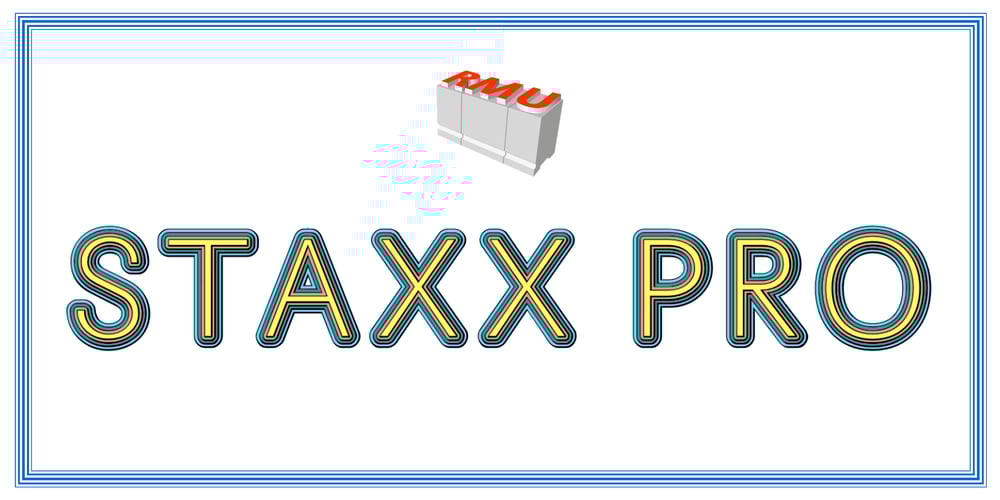
Staxx Pro
Staxx Pro font
Staxx Pro Font Family was designed by Ralph M. Unger and published by RMU. Staxx Pro contains 1 styles and family package options. Staxx Pro – a fantastic plastic display font – for ads, posters, billboards, covers, car and truck design etc.